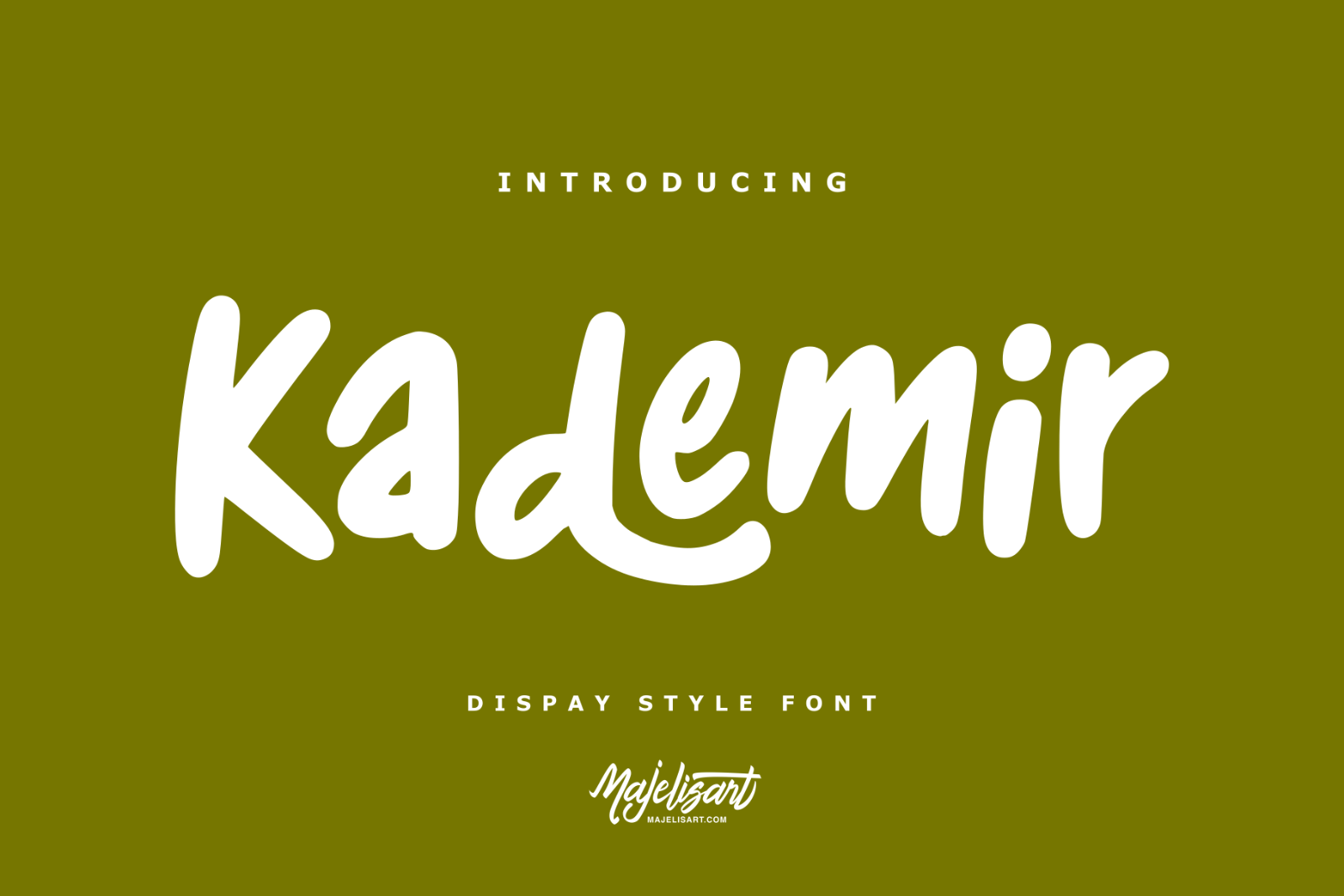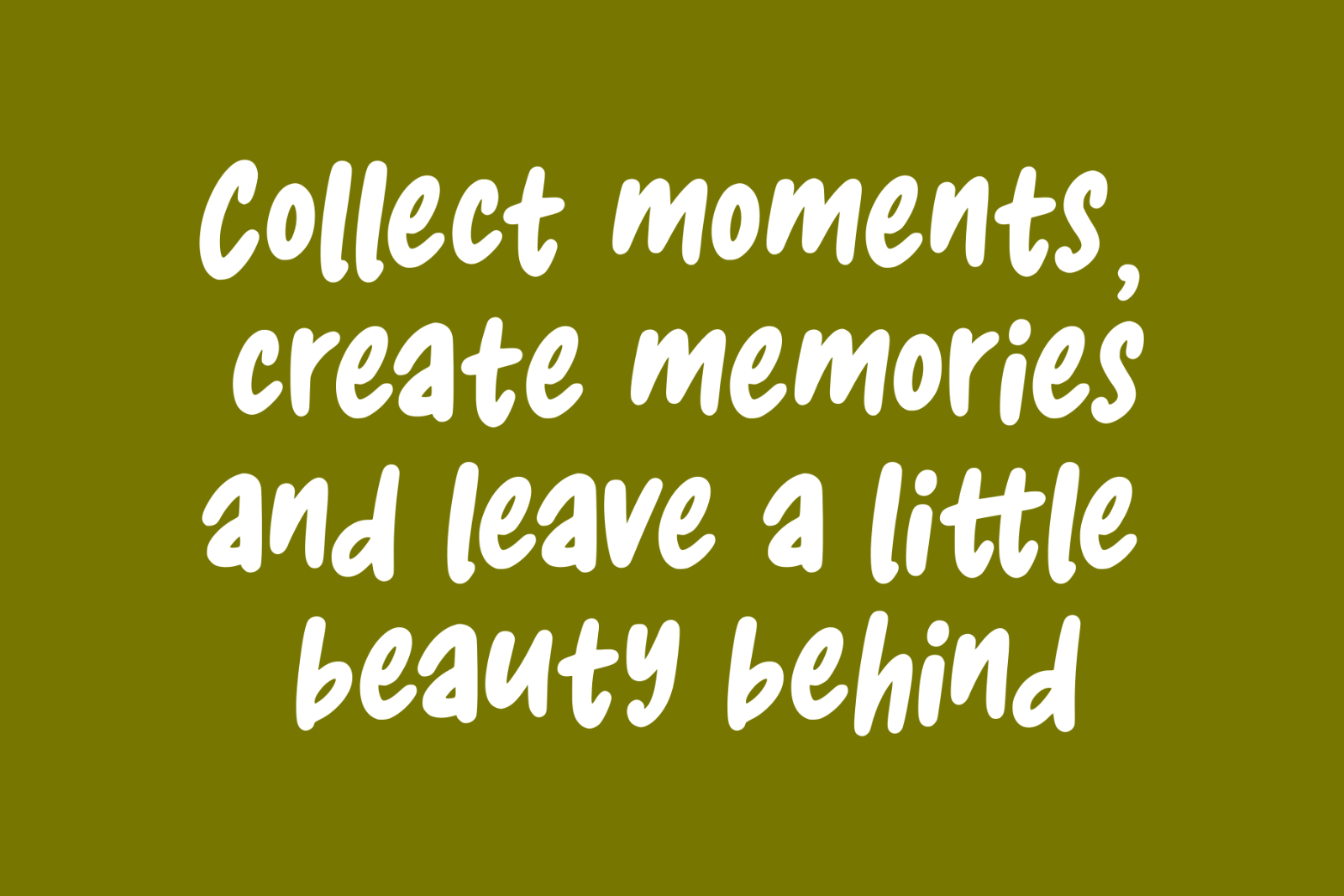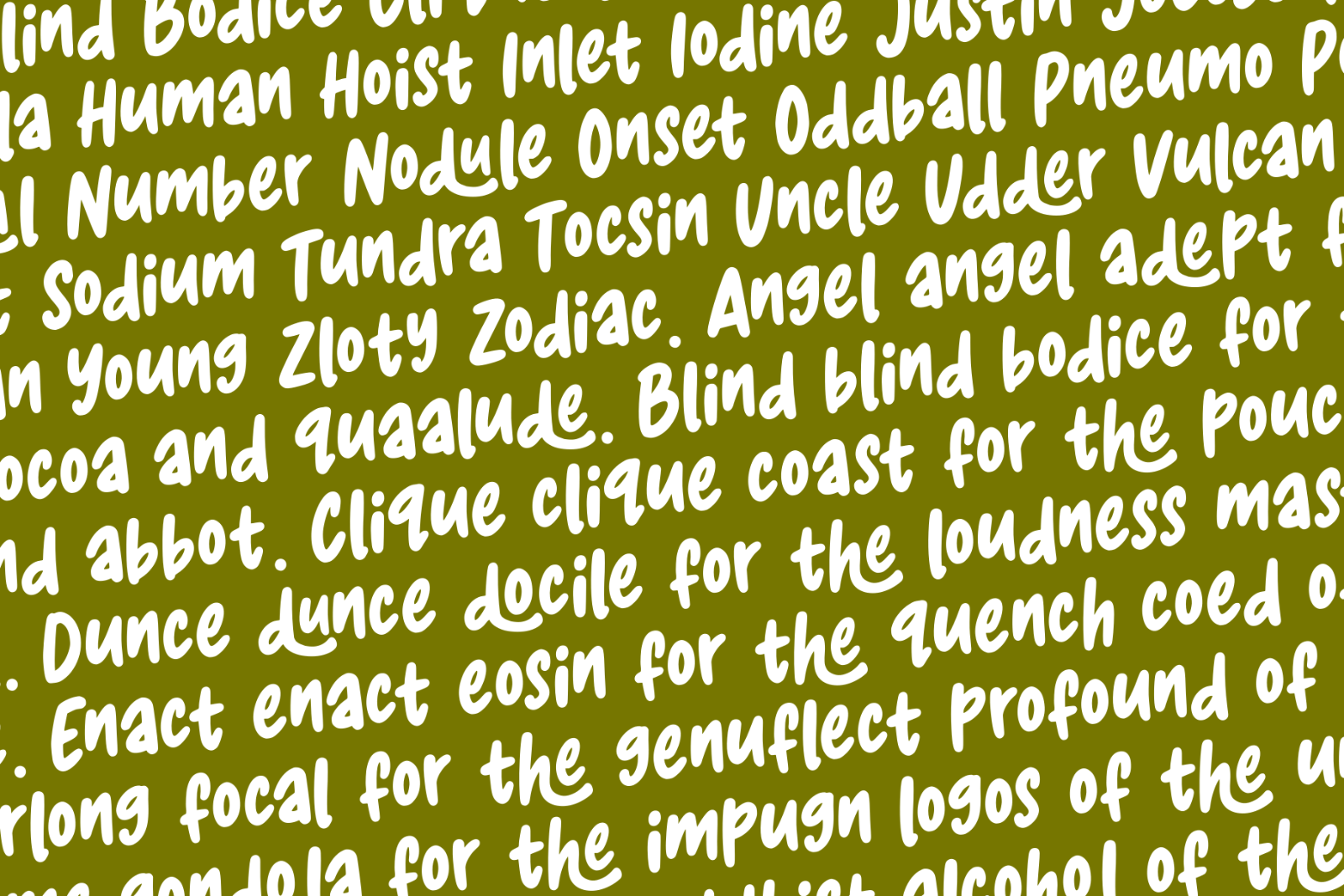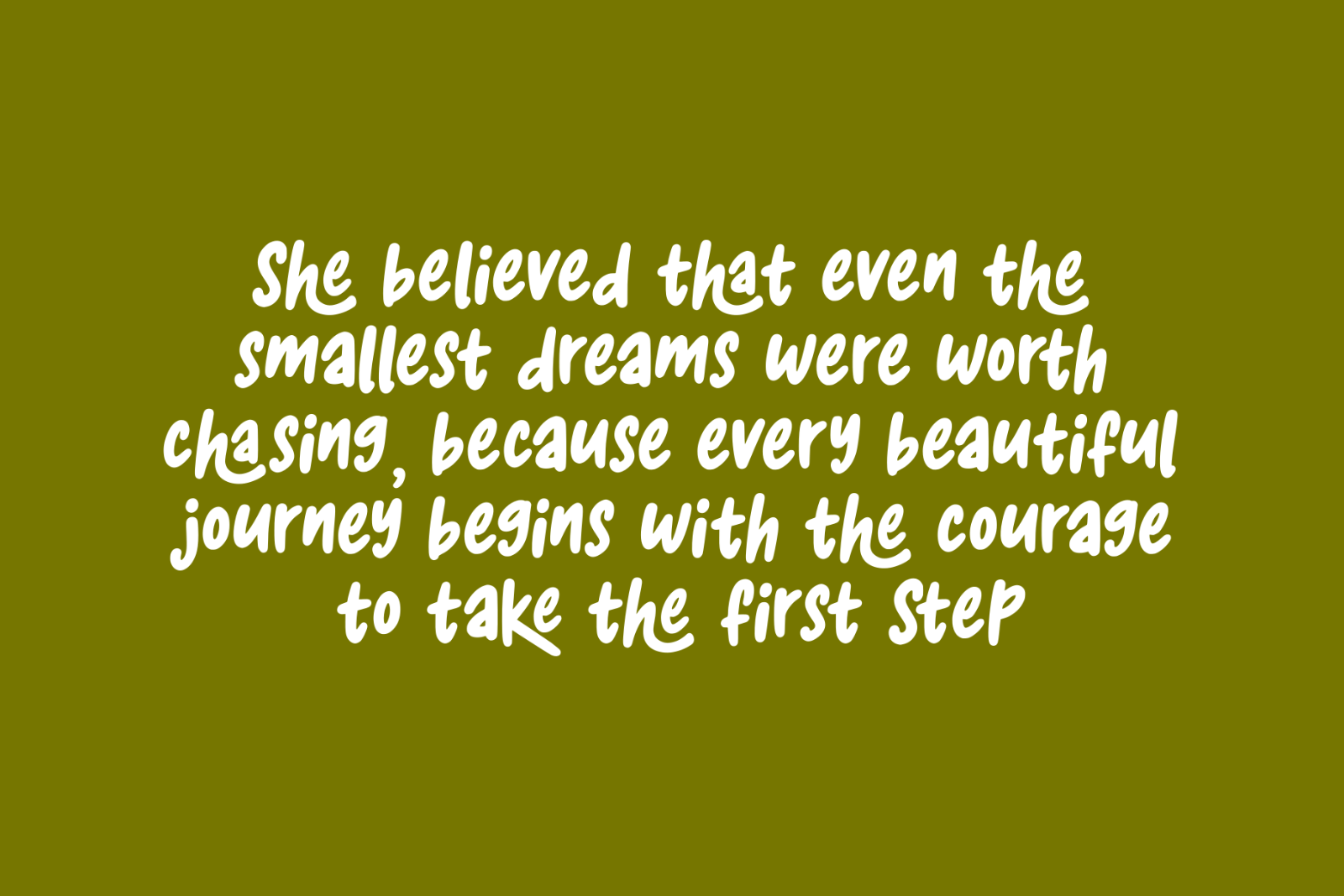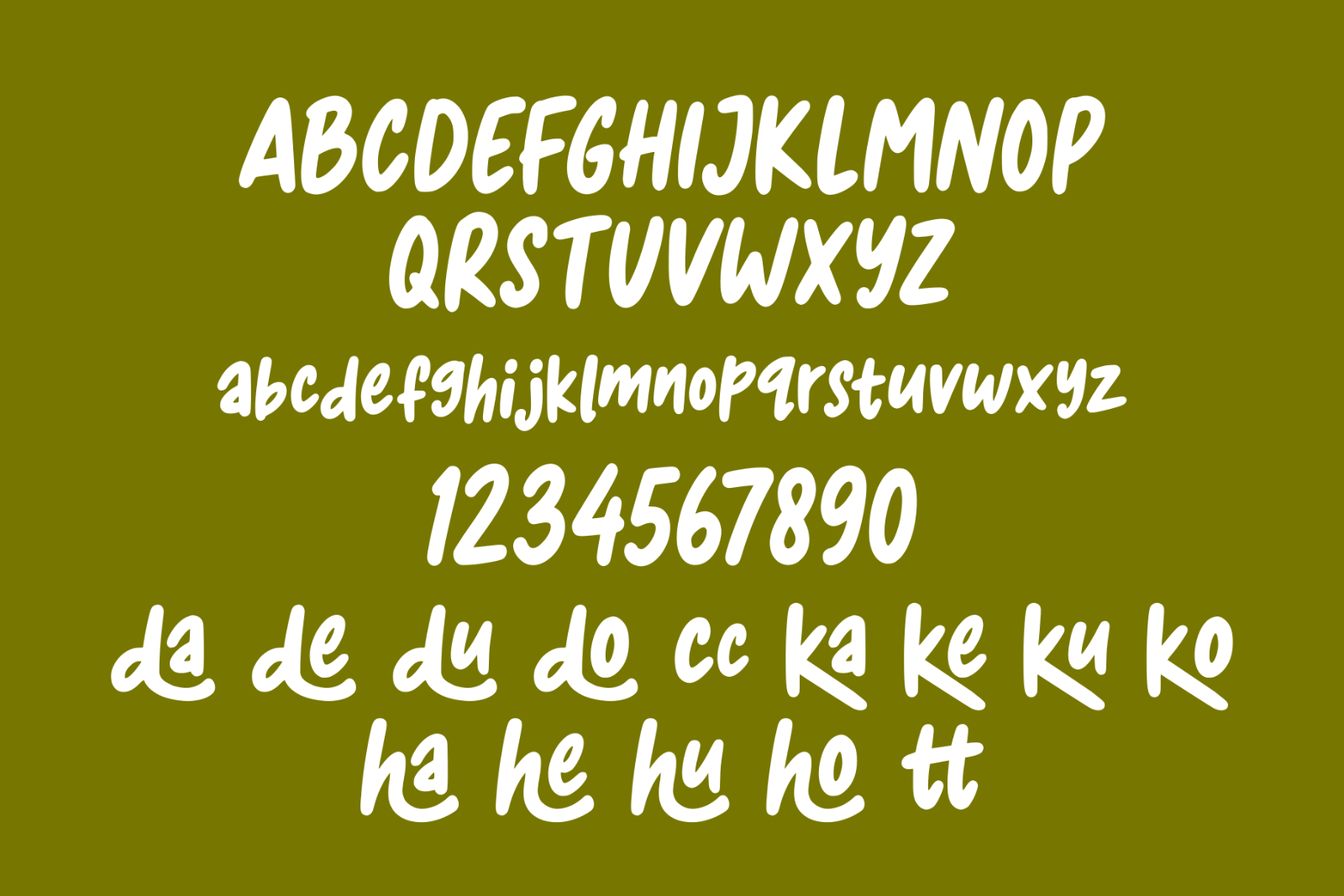
Kademir — Display Style Font
Introducing Kademir, a bold and expressive display typeface designed to bring a fun, confident, and handcrafted feel to your creative projects.
With its thick strokes, smooth curves, and playful handwritten character, Kademir creates a strong visual presence while keeping a warm and approachable personality. Its casual yet distinctive appearance makes it perfect for eye-catching headlines and creative branding.
Perfect For
• Logo & branding
• T-shirt and apparel designs
• Posters & flyers
• Packaging design
• Product labels
• Stickers
• Children's and playful designs
• Food & beverage branding
• Invitations
• YouTube thumbnails
• Headlines & titles
• Merchandise
• Creative advertising
Kademir works especially well for large text, short phrases, logos, headlines, and display designs where you want a bold and memorable look.
Give your designs a touch of fun, boldness, and handmade personality with Kademir.
Kademir — Bold, playful, and made to stand out.